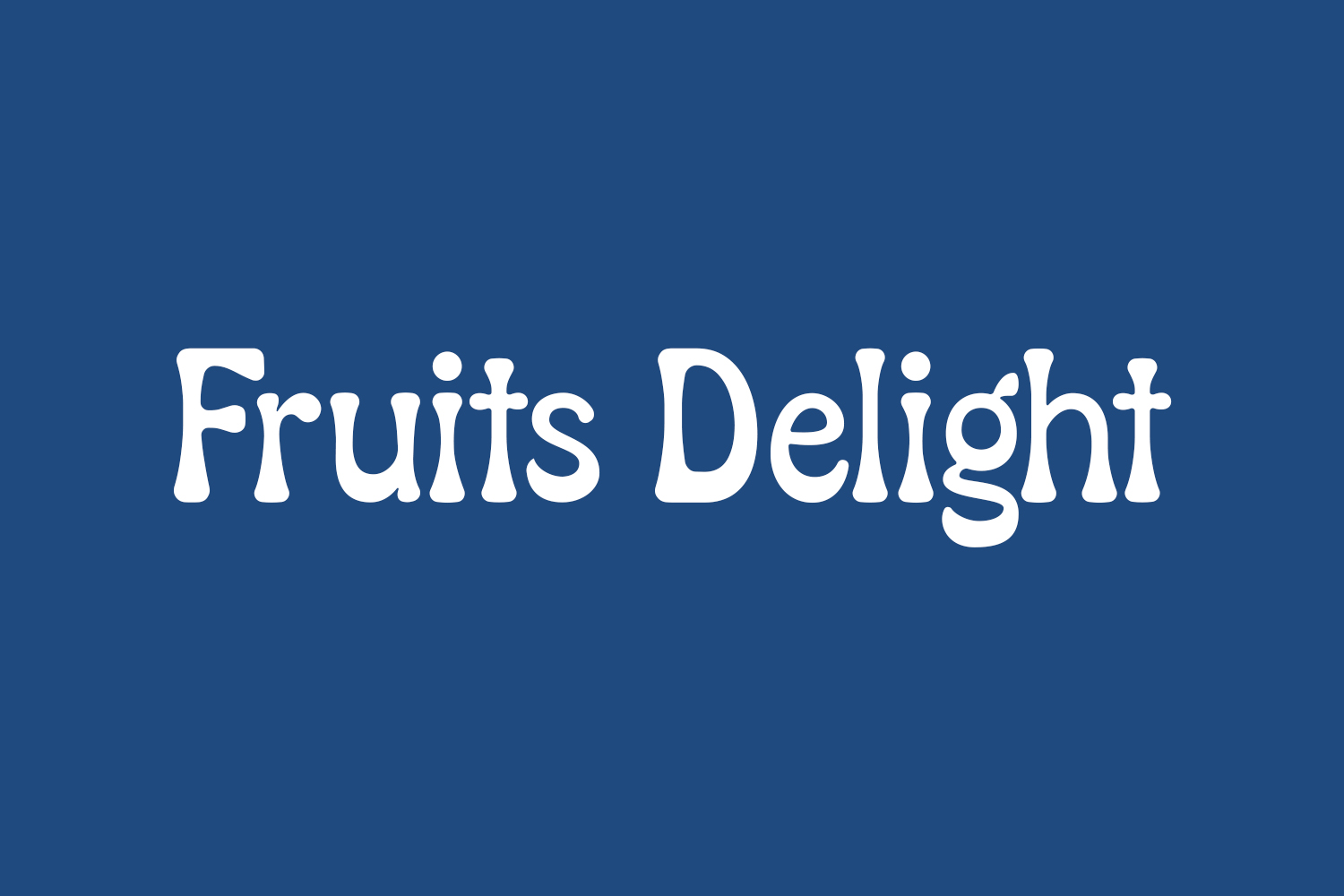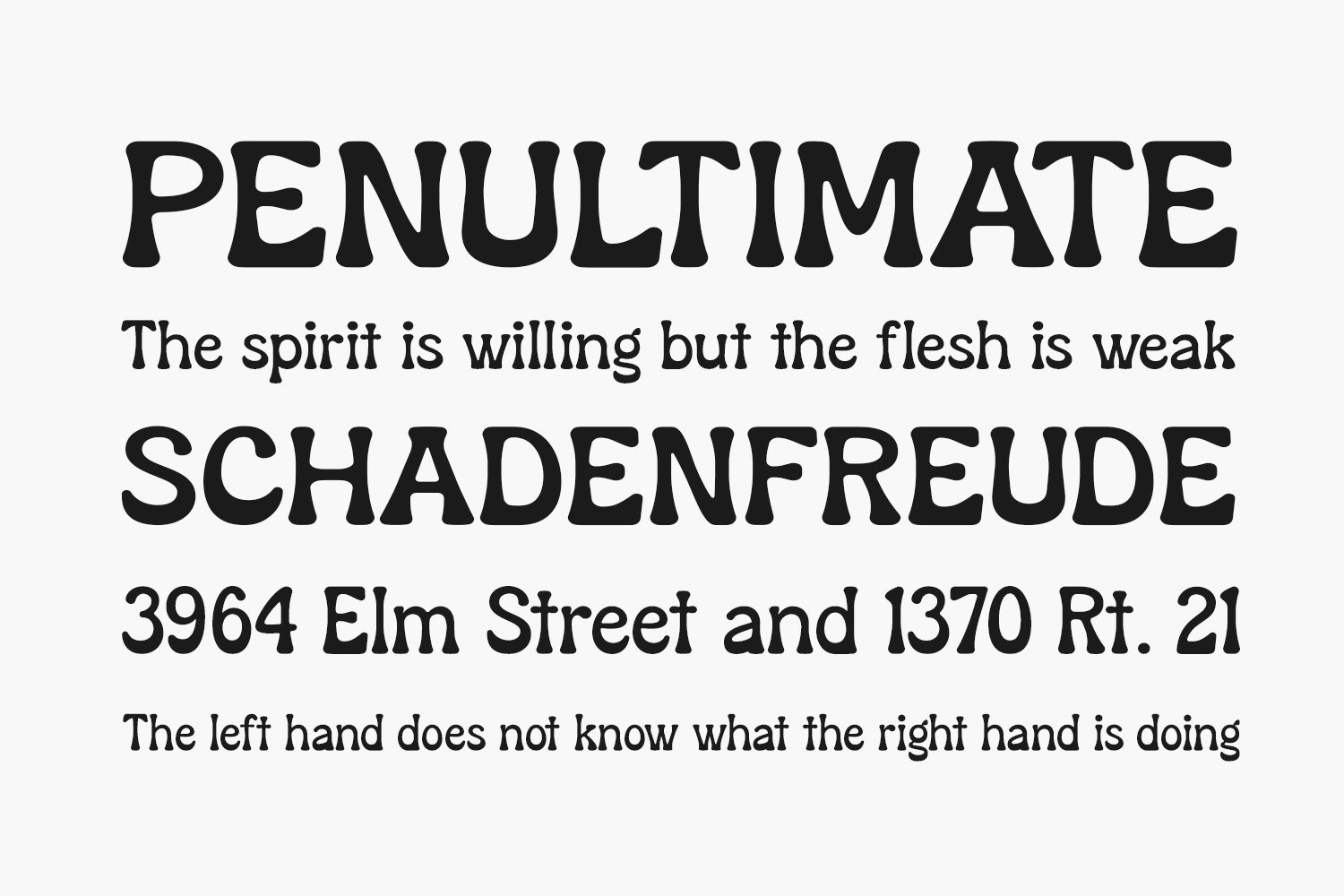
Fruits Delight Free Font is a lively and stylish serif display font that exudes a captivating retro flair. This versatile font is ideal for a multitude of design concepts. Incorporate it into your projects with confidence, and you’ll be delighted with the outcome. Fruits Delight Free Font is free for personal use only. Please purchase the full version for commercial use.